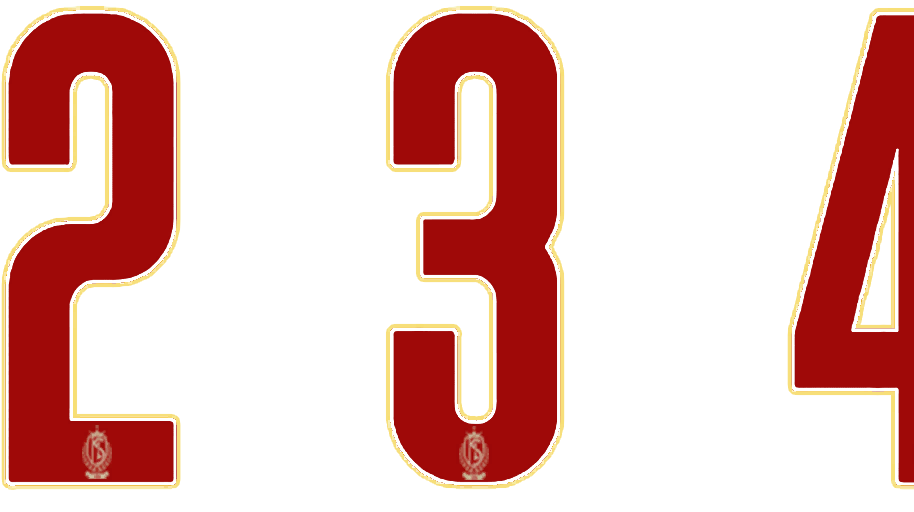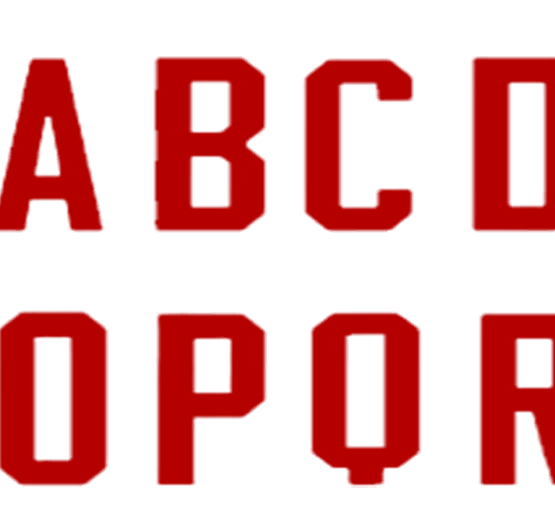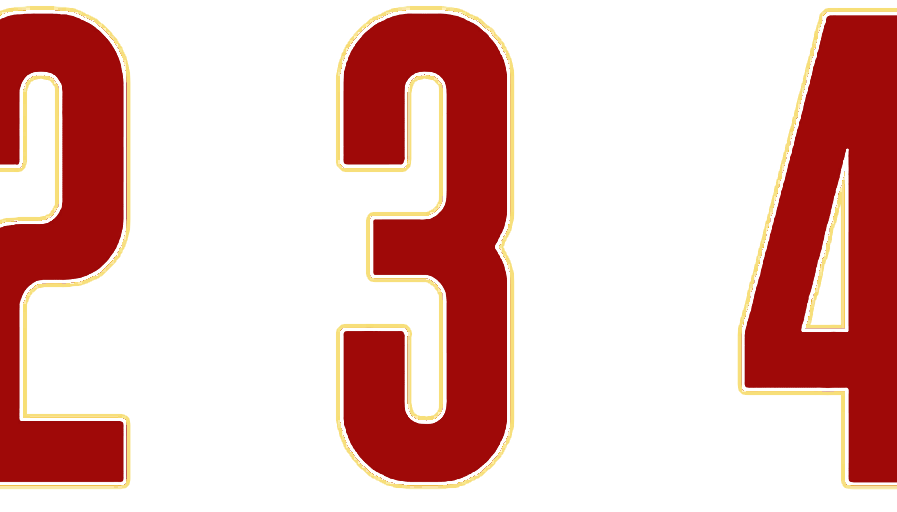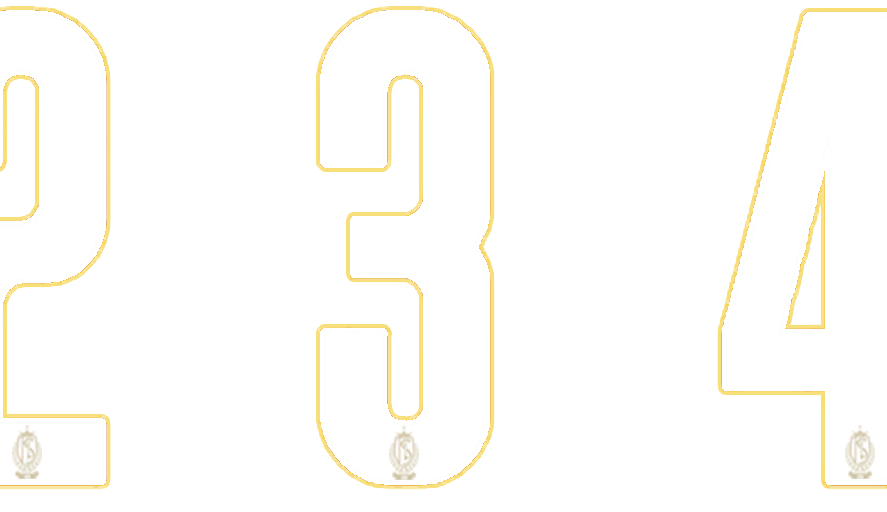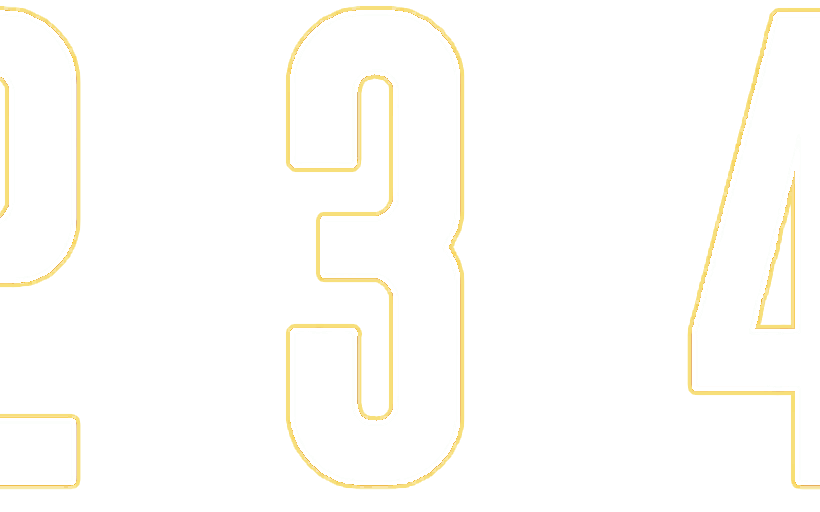
standard de liege 2023-24 font PES
🟢FONT standard de liege 2023-24 pes 🟢standard de liege 2023-24 FONT pes ✅2COLORS=1.red*GOLDEN-2.WHITE*GOLDEN 👉FOR PES=18-19-20-21 🛠MAKER BY =SALEH order in telegram = @saleh79